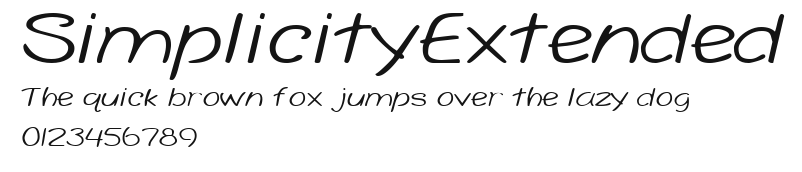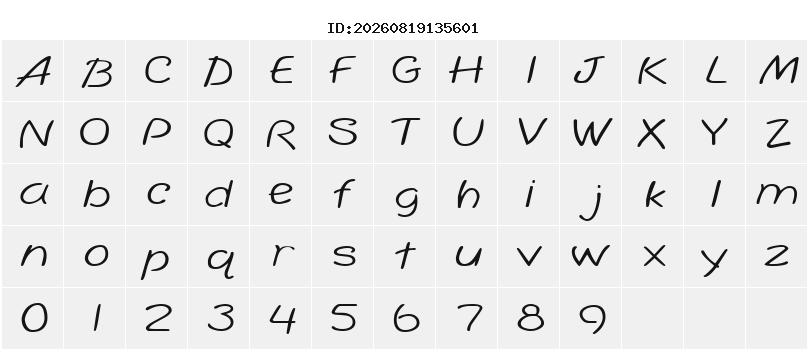
About SimplicityExtended.ttf
SimplicityExtended.ttf is a modern, elegant sans-serif font designed for ultimate readability and visual harmony. Perfect for branding, headlines, web design, and print materials.